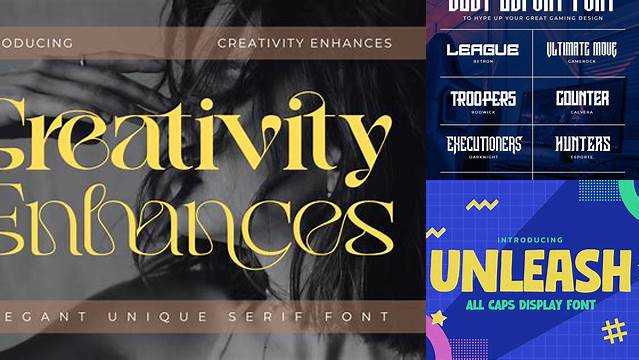
Unleash Creativity: Free Font Downloads For Everyone
Hey guys, ever found yourself staring at a blank design project, feeling like something's missing? Chances are, it's a lack of oomph in your typography! That's where creative font free download comes into play, transforming your vision from drab to fab without costing a dime. Seriously, finding the right fonts can make all the difference, whether you're working on a personal blog, a school project, or even a small business branding effort. The world of free fonts is vast and vibrant, brimming with unique styles just waiting to be discovered and downloaded. It's an incredible resource for designers, hobbyists, and anyone who wants to add a touch of personality to their text. So, buckle up, because we're about to dive deep into how you can score some amazing free creative fonts and elevate your design game.
1. Discovering the Best Free Creative Fonts for Your Projects
When you're on the hunt for creative font free download options, the sheer volume can be overwhelming, right? But fear not, because finding the best free creative fonts for your specific project is totally doable with a little guidance. Think about what kind of vibe you're going for. Is it sleek and modern, or perhaps a whimsical, hand-drawn feel? Maybe you need something bold and impactful for a headline, or a delicate script for an invitation. The key here is to have a clear idea of your project's aesthetic before you start browsing. Many sites categorize their free fonts, making it easier to filter through the noise. You'll find categories like 'display,' 'script,' 'serif,' 'sans-serif,' 'handwritten,' 'decorative,' and 'dingbats,' each offering a unique flavor. For example, if you're designing a minimalist poster, a clean sans-serif font with a unique twist could be perfect. If it's a wedding invitation, an elegant script font might be just what you need to convey sophistication and charm. Don't be afraid to experiment and download a few different options to see how they look in context. Remember, the best creative font is one that not only looks good but also effectively communicates your message and fits the overall design harmony. It's all about making your text sing and stand out in a crowded visual landscape. So, take your time, explore the vast libraries available, and you'll surely unearth some typographic treasures that elevate your next creation.
3. Enhancing Your Designs with Stylish Free Font Choices
Alright, let's talk about adding some serious flair to your projects with creative font free download options, specifically focusing on how stylish free fonts can totally transform your work. It's not just about finding any free font; it's about finding one that brings a certain je ne sais quoi to your design. Stylish fonts can be anything from elegant scripts that evoke a sense of luxury, to sharp, geometric sans-serifs that scream modernity, or even playful, quirky typefaces that inject fun and personality. The trick is to understand how different styles communicate different messages. A flowing script font might be perfect for a sophisticated branding project for a boutique, while a bold, distressed typeface could be ideal for a rock concert poster. The beauty of free stylish fonts is that they allow you to experiment with these diverse aesthetics without any financial commitment. You can download several options, test them out in your layouts, and see which one truly resonates with your vision. Don't underestimate the power of font pairing either! Sometimes, the most stylish outcome comes from combining a strong, expressive headline font with a clean, readable body text font. This contrast creates visual interest and hierarchy, making your design more engaging and professional. Remember to consider the overall readability and legibility, especially for smaller text sizes. A font might look incredibly stylish at a large display size, but become unreadable when shrunk down. So, balance style with practicality, and you'll be well on your way to creating designs that truly stand out and captivate your audience.
4. Unlocking Your Artistic Vision with Free Artistic Fonts
If you're an artist at heart, always seeking ways to infuse your personal touch into everything you create, then exploring creative font free download specifically for artistic fonts free is going to be your jam! These aren't your everyday, run-of-the-mill typefaces. Artistic fonts are designed to be expressive, often mimicking hand-drawn textures, brush strokes, quirky letterforms, or unique decorative elements. They're perfect for projects that demand a strong visual identity and a touch of handcrafted charm. Think about designing a unique logo for a craft business, creating eye-catching social media graphics for an art event, or even illustrating a children's book. An artistic font can instantly set the tone and convey a sense of creativity and individuality. You'll find an incredible variety, from fonts that look like they've been painted with watercolors, to those that appear to be chiseled from stone, or even ones with whimsical doodles integrated into their design. The beauty of these free artistic fonts is that they allow you to push creative boundaries without having to hand-letter everything yourself – saving you a ton of time while still achieving that bespoke look. When selecting an artistic font, consider how it interacts with other visual elements in your design. Will it complement your illustrations or photography, or will it compete for attention? Often, a highly artistic font works best as a display font for headlines or short phrases, paired with a simpler, more legible font for body text. This creates a balanced and harmonious design that's both visually engaging and easy to read. So, go forth and let your imagination soar with the endless possibilities that free artistic fonts offer!
5. Elevating Your Projects with Creative Typography Downloads
When we talk about creative font free download, we're really dipping our toes into the vast ocean of creative typography downloads. Typography isn't just about choosing a pretty font; it's an art form that involves arranging type to make written language legible, readable, and appealing when displayed. And with free creative typography, you get to play a professional without the hefty price tag! These downloads go beyond just individual fonts; sometimes they come as entire font families with multiple weights (light, regular, bold) and styles (italic, condensed), giving you incredible flexibility. Other times, they might include unique glyphs, ligatures, and alternate characters that allow for truly custom letterforms. For example, a single creative font might come with several stylistic sets, letting you swap out standard characters for more elaborate or connected versions, which is fantastic for logos or special headlines. Think about how a carefully chosen and well-executed typographic treatment can instantly communicate a brand's personality, set the mood for an event, or draw attention to crucial information. A powerful, modern creative typeface can signify innovation and forward-thinking, while a warm, rounded one might suggest approachability and comfort. These creative typography downloads empower you to experiment with different visual voices for your content. They're perfect for web design, print materials, social media campaigns, and even personal artistic endeavors. Always remember to consider the hierarchy of your text: what's the most important message, and how can typography emphasize that? Utilizing varied weights and sizes from a single creative font family can create a cohesive yet dynamic layout. It's about making your words not just read, but seen and felt by your audience, leaving a lasting impression through thoughtful and inventive type choices.
7. Where to Find Free Creative Fonts: Your Ultimate Guide
Wondering where to find free creative fonts that truly stand out? You're in luck, because the internet is a goldmine for creative font free download options, if you know where to dig! Beyond the popular choices, let's explore some lesser-known but equally valuable spots. Firstly, don't overlook independent font designers' personal websites or Gumroad stores; many artists offer freebies as a way to build their portfolio and community. A quick search on platforms like Instagram or Pinterest using hashtags like #freefont or #designresources can often lead you to these hidden gems. Secondly, various design resource websites (think Creative Market or Envato Elements, but keep an eye out for their freebie sections) occasionally offer premium fonts for free for a limited time. It pays to subscribe to their newsletters or follow their social media channels to catch these time-sensitive offers. Thirdly, specialized niche font sites might cater to very specific styles, like pixel art fonts, tattoo fonts, or gothic fonts. If your project demands a particular aesthetic, these niche sites can be incredibly valuable. When you land on a site, take a moment to understand its interface. Does it allow for easy filtering by style, license type, or popularity? Is there a clear preview function? These features make the browsing experience much smoother. Always download directly from reputable sources or, if you're using a third-party aggregator, make sure the link leads to the original designer's page for the download. This not only supports the creator but also ensures you're getting the official and most up-to-date version of the font. Building a personal library of trusted sources will save you countless hours in the long run and ensure you always have access to a fantastic array of creative typefaces for all your design adventures.
8. Staying Ahead with Trendy Fonts: Free Download Options
Keeping your designs fresh and current is key, and that's why looking for creative font free download options that are also trendy fonts free download is a smart move! Design trends, including typography, evolve constantly, and using contemporary typefaces can make your projects look modern, relevant, and professional. Right now, some popular trends include bold, chunky serifs, often with a retro twist; condensed sans-serifs that maximize space; imperfect, organic, or hand-drawn styles; and a resurgence of elegant, high-contrast scripts. The great news is that many talented designers release free versions of their trendy fonts, or even entire families, to showcase their skills and gain exposure. How do you find these trendsetters? Follow leading design blogs, graphic design influencers on social media, and subscribe to newsletters from font foundries or design resource platforms. They often highlight new releases that align with current aesthetic sensibilities. Pay attention to what major brands and successful campaigns are using – this can give you a good indication of what's currently in vogue. When you download a trendy free font, think about how long the trend might last. While it's great to be current, you also want your design to have some longevity. Sometimes, a classic yet versatile trendy font will serve you better than one that's ultra-specific to a fleeting fad. Using trendy fonts strategically can instantly elevate your work, making it feel fresh and connected to the current visual culture. So, don't shy away from exploring the latest in typography; there's a wealth of free, fashionable typefaces waiting for you to discover and integrate into your next awesome project!
15. Sleek & Modern: Creative Sans-Serif Fonts for Clarity
When your design demands clarity, modernity, and a sleek, unadorned aesthetic, then searching for creative font free download options that fall under sans-serif fonts creative is definitely the way to go. Sans-serifs, as their name implies ('sans' meaning 'without' in French), are typefaces without those little decorative strokes at the ends of their main lines. This lack of serifs gives them a clean, minimalist, and highly contemporary look, making them incredibly popular in digital interfaces, modern branding, and any design where readability and directness are paramount. But